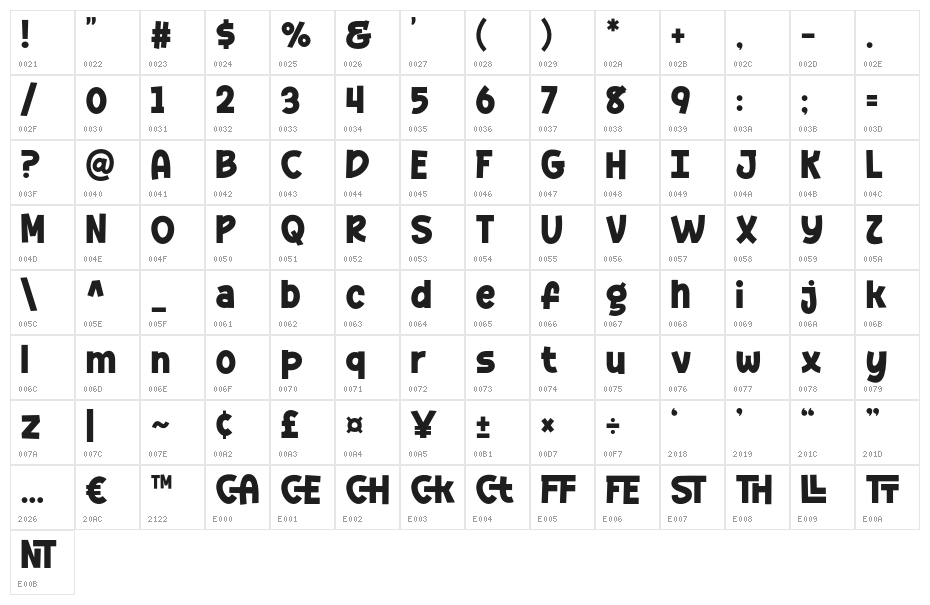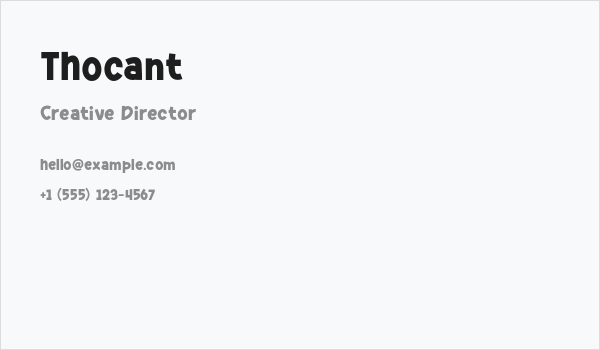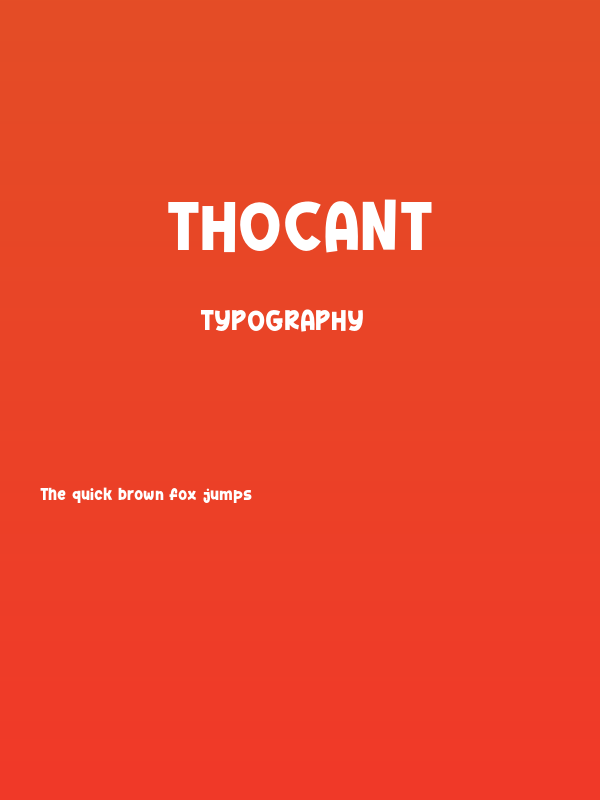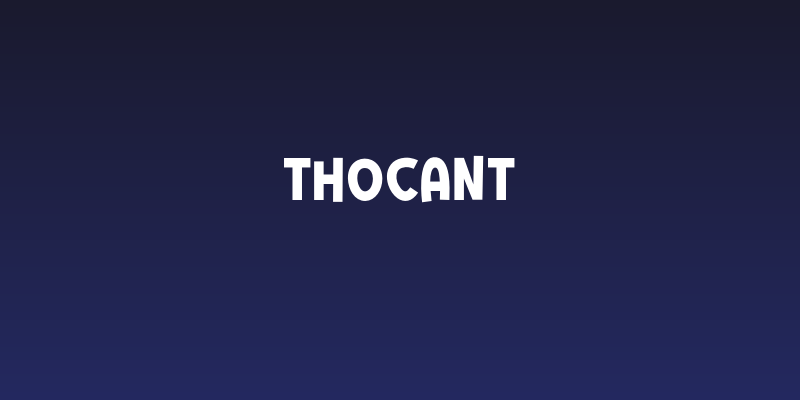
Thocant Font
Thocant Description
A bold, playful font with rounded edges and a slightly irregular, hand-drawn appearance.
| Overall Style | Playful, Casual |
| Proposed Projects | Children's books, playful branding, casual posters. |